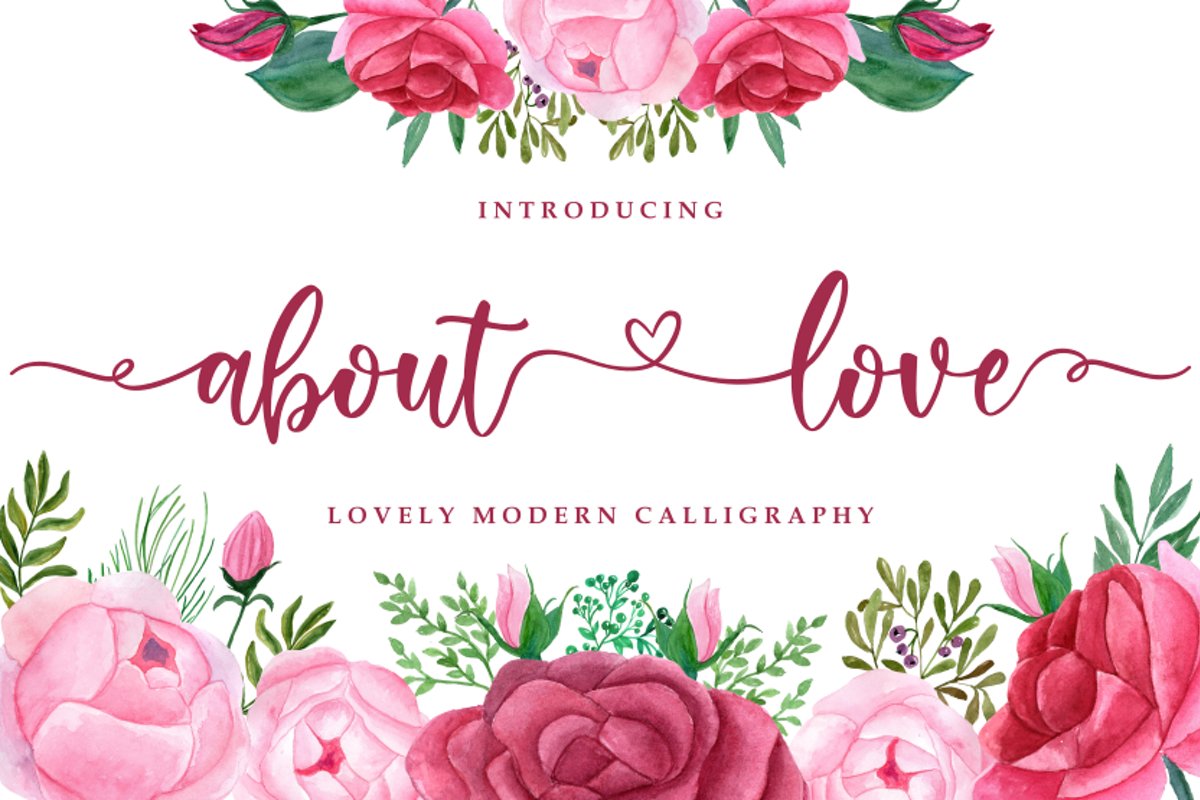
About Love
About Loveis a lovely  modern calligraphy font with special heart characters. It can add a romantic touch to any crafting project!
This font is also suitable for any purpose project, invitations, labels, magazines, books, greeting / wedding cards,
packaging, fashion, make up, stationery, novels, labels or any type of
advertising purpose. , bussines card, Initial, etc.